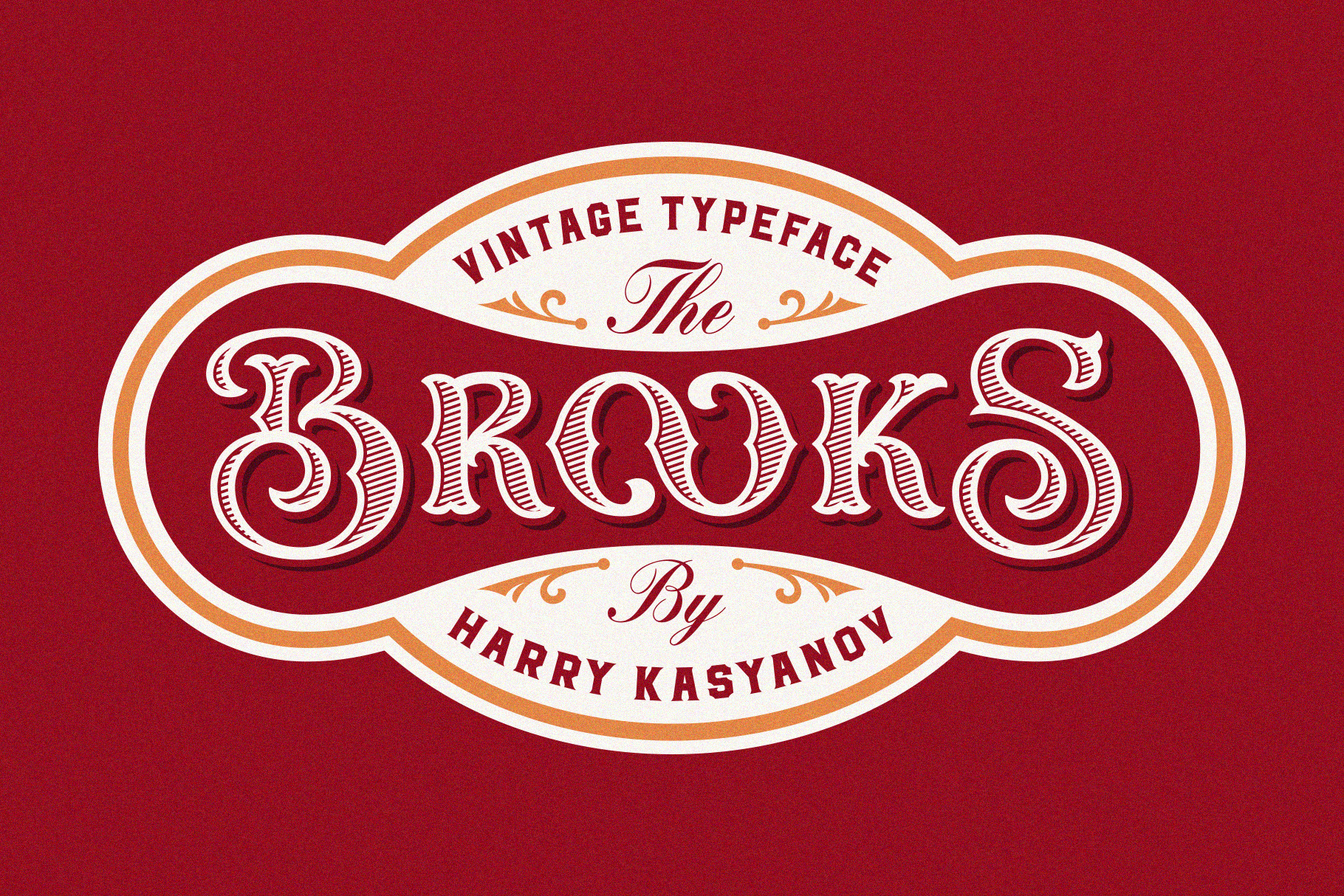
Brooks Vintage Font
Brooks is an old fashioned font family inspired by vintage alcohol labels and packages as well as the old signboards. The font works well with normal size text but looks better for large headlines and short words. Perfect for many creative products such as logos, headlines, packaging, alcohol labels, and many other uses.
The Brooks is a layered font and it includes 3 different styles; Regular, Shadow, and Insert so you can combine them with each other and get fancy headlines. The font includes a full set of characters from a-z for lowercase, A-Z for uppercase, set of alternates for each case, ligatures as well as numbers, and minimum punctuations set.